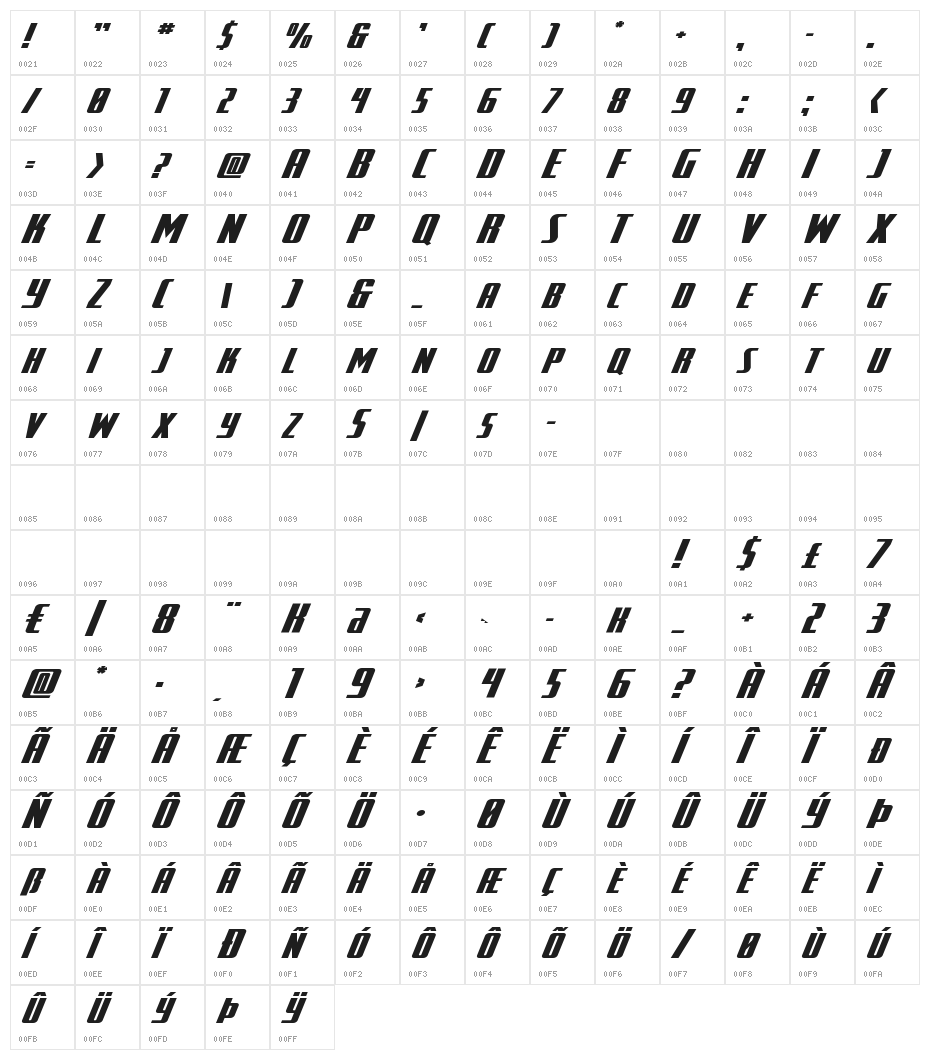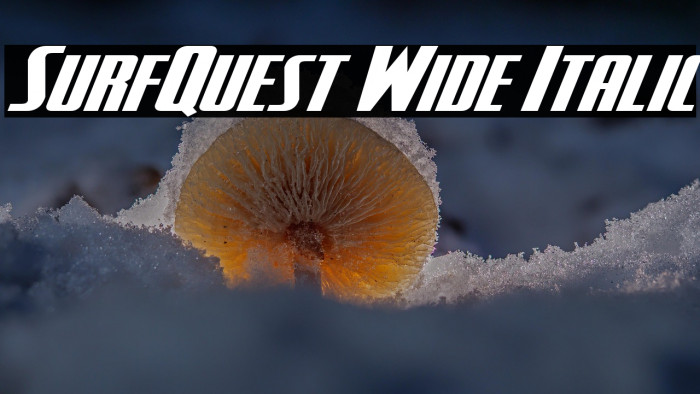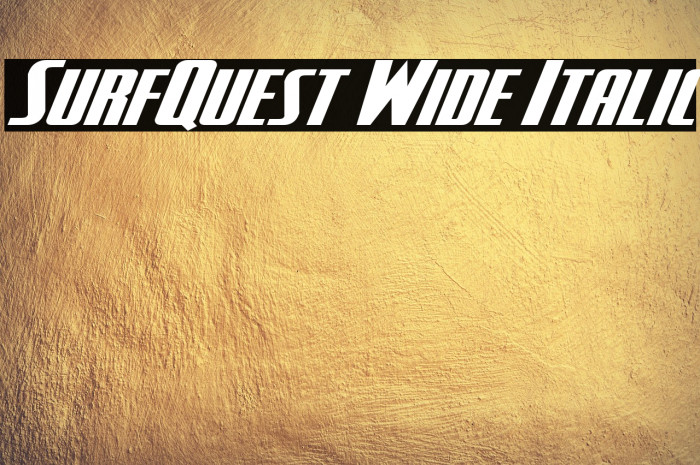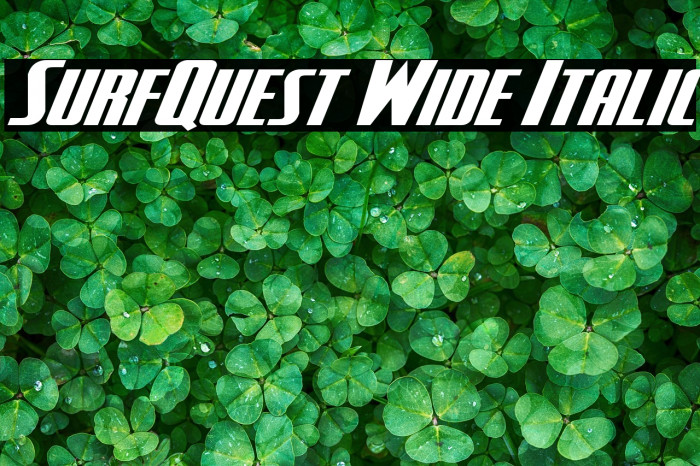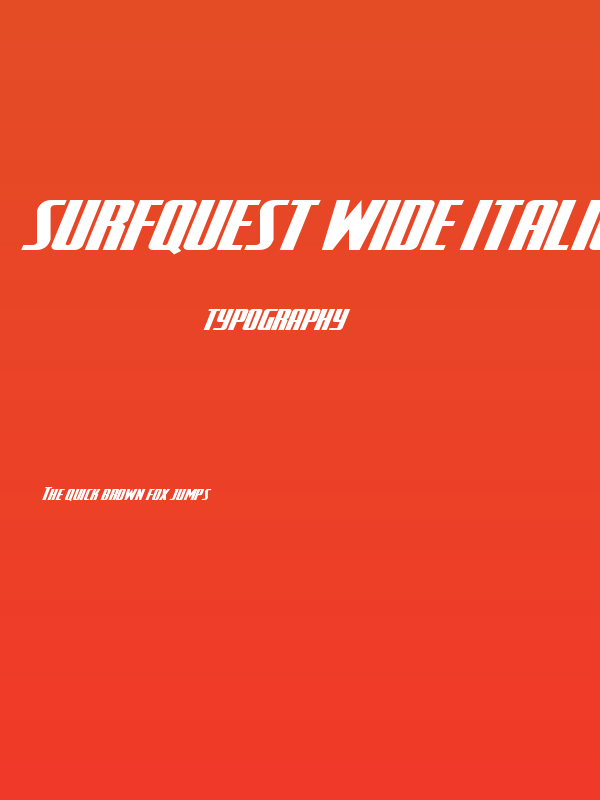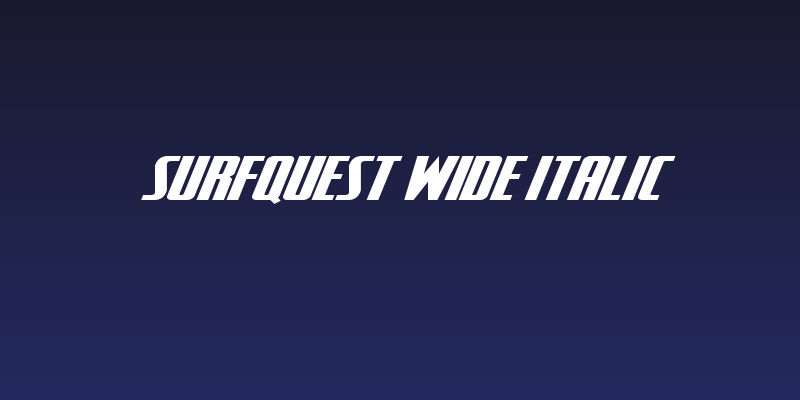
SurfQuest Wide Italic Font
SurfQuest Wide Italic Description
This font features a bold and dynamic style with a distinctly italicized slant, giving it a sense of motion and energy. The characters are wide and expansive, contributing to a strong visual impact. Each letter is crafted with sharp, angular edges and consistent stroke thickness, creating a uniform appearance across the typeface. The numbers and special characters maintain the same boldness and angularity, ensuring cohesion throughout. This font is well-suited for projects that require a modern and assertive aesthetic.
| Proposed Projects | Ideal for sports branding, dynamic posters, modern advertising, and any project needing a bold statement. |